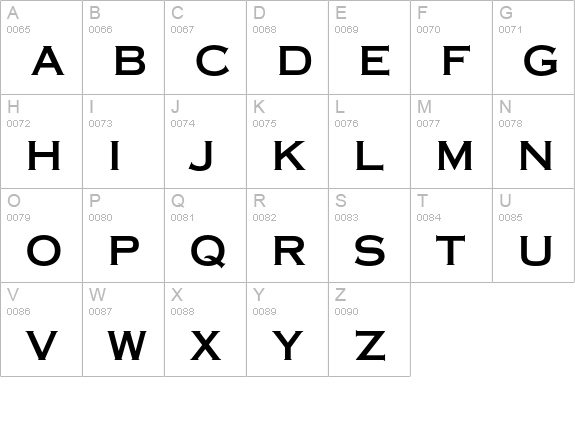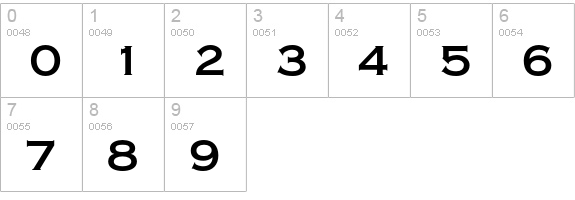
Copperplate Gothic Std 31 AB is a classic and elegant font that exudes sophistication and style. Its sharp, clean lines and distinctive serifs make it a versatile choice for a wide range of design projects. Whether used for headings, logos, invitations, or signage, this font adds a touch of timeless charm to any layout. What sets Copperplate Gothic Std 31 AB apart is its unique blend of traditional and modern elements, making it a standout choice for both traditional and contemporary designs. The bold strokes and fine details of this font create a striking visual impact that is sure to capture attention. Best of all, Copperplate Gothic Std 31 AB is freely available to download at FontsMarket.com, making it easily accessible for designers and enthusiasts alike. Whether you're working on a personal project or a professional assignment, this font is a valuable addition to your creative toolkit. Embrace the timeless appeal of Copperplate Gothic Std 31 AB and elevate your designs with its classic beauty and sophistication.